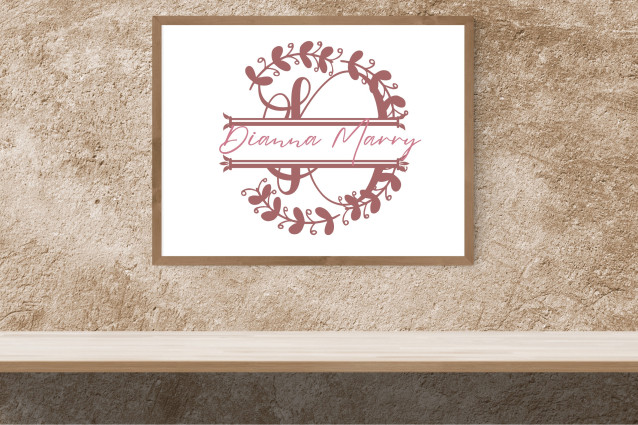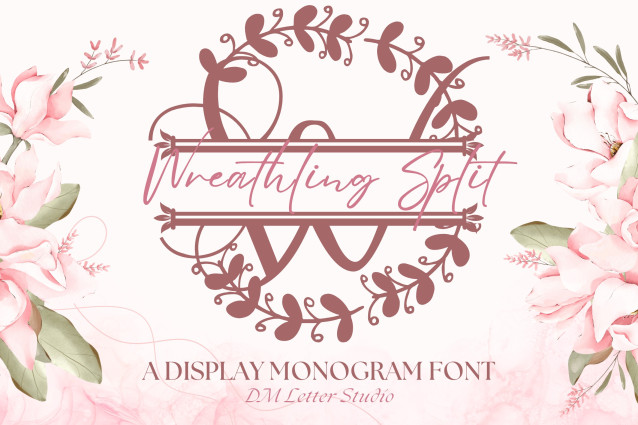
Wreathling Split Monogram Font
Wreathling Split Monogram Font is a refined monogram font that combines elegant serif letters with hand-drawn botanical wreaths, now in a customizable split style. Each uppercase letter is encircled by a delicate wreath design and features a centered split—perfect for adding names, dates, or custom text. Designed for weddings, branding, and personalized crafts, this font offers a timeless blend of nature-inspired beauty and functional design.